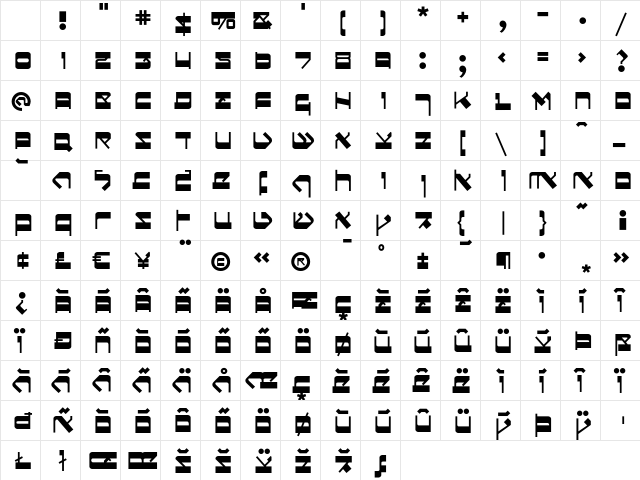
Circumcision SansBold
Style: SansBold
Complete Circumcision SansBold glyph index. Displaying only characters natively supported by Circumcision SansBold font.
Design Context for Circumcision
Circumcision is a composed and adaptable typeface that performs quietly and consistently across a wide range of design contexts. Its bold stroke weight gives it real presence on the page.